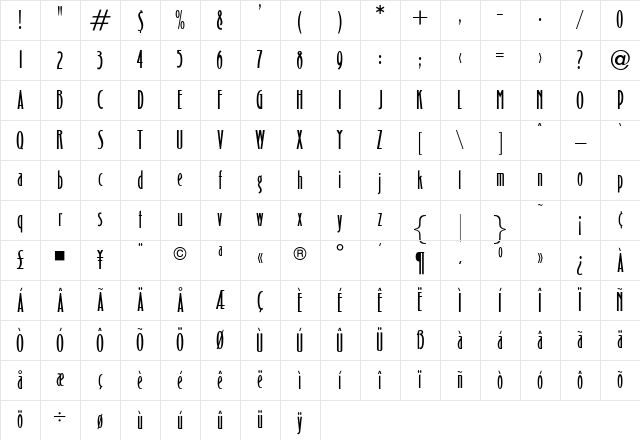
OPTICarling Regular
Design Context for OPTICarling
OPTICarling is a composed and adaptable typeface that performs quietly and consistently across a wide range of design contexts.